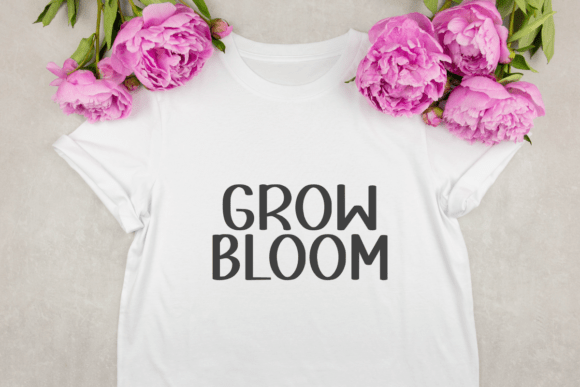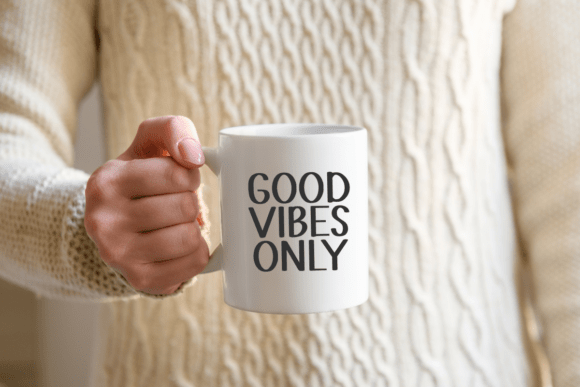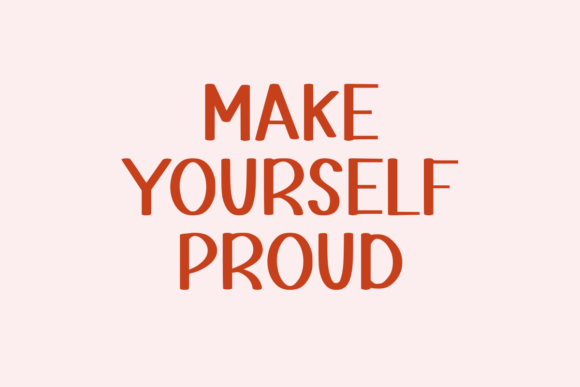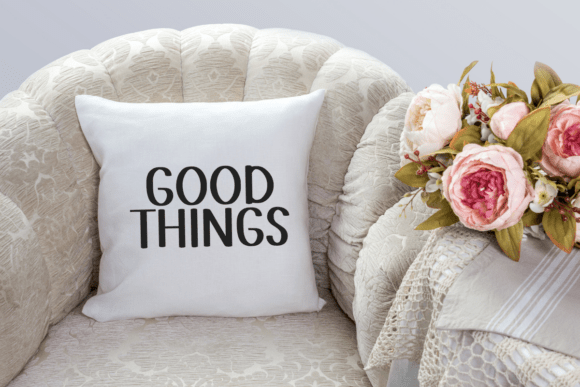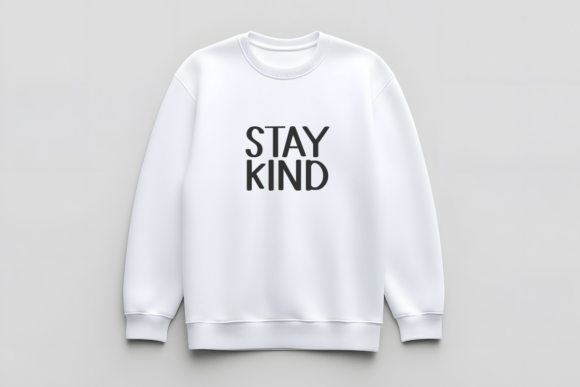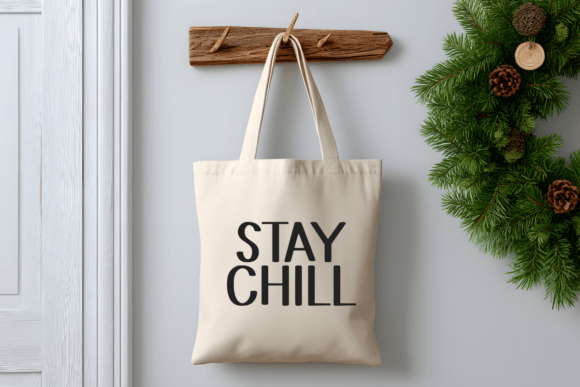
Introduction to Procees Feelings Font
Do you ever find yourself rummaging through your old notebooks, searching for that perfect font to match your creative vibe? I do! And that’s exactly why I’m excited to share with you the Procees Feelings Font – a sassy and sarcastic handwritten font that’s about to become your new BFF.
With its rounded and friendly look, this font is perfect for adding a personal touch to your creative projects. Whether you’re designing birthday cards, baby shower invitations, or simply jotting down notes, the Procees Feelings Font is sure to bring a smile to your face. And the best part? It’s a free download, available for high-quality use with a transparent background – making it the ultimate design resource for any creative project.
As a designer, you know how valuable a great font can be in elevating your work. That’s why I’m sharing this hidden gem with you – the Procees Feelings Font is a must-have for anyone looking to add a fun and adorable touch to their designs.
Key Features of Procees Feelings Font
- High-quality, hand-drawn design perfect for creative projects and artistic expressions.
- Features a transparent background, allowing for seamless integration with any design element.
- Includes a range of unique characters, including special symbols and emojis, to enhance the creative possibilities of the font.
- Supports a wide range of languages, making it a versatile design resource for international projects.
- Designed to evoke emotions and spark creativity, making it an ideal choice for designers, artists, and writers seeking a unique and expressive font.
Honest Review: Procees Feelings Font
I recently stumbled upon the Procees Feelings Font and I have to say, I’m quite impressed. As a designer, I’m always on the lookout for high-quality design resources to elevate my creative projects.
The Procees Feelings Font is a free download with a transparent background, making it incredibly versatile for use in various design applications.
- ✨ Elegant and modern design aesthetic
- ✨ Clear and readable typography
- ✨ Versatile and easy to use
- ⚠️ Limited font variations (only a few styles available)
- ⚠️ May not be suitable for formal or traditional designs
Overall, I’m quite pleased with the Procees Feelings Font. It’s a great addition to any designer’s toolkit, and I’m excited to see how it can elevate my future creative projects. If you’re looking for a high-quality, modern font, I’d definitely recommend giving it a try.
How to Use Procees Feelings Font
The Procees Feelings Font is a versatile and high-quality design resource ideal for creative projects. With its transparent background and elegant style, it can elevate any design to the next level.
The Procees Feelings Font can be used in a variety of design applications, including:
To get the most out of the Procees Feelings Font, try combining it with other design elements, such as textures and patterns, to create a unique and eye-catching design. Experiment with different font sizes and colors to achieve the desired effect.
The Procees Feelings Font is ideal for:
- Creating social media graphics and posts
- Designing business cards and marketing materials
- Developing branding and logo designs
Alternatives to Procees Feelings Font
Great Vibes Font is a high-quality, hand-drawn script font perfect for creative projects. It features a transparent background, making it ideal for use on images and designs where a clear background is necessary. Great Vibes Font is a great alternative to Procees Feelings Font for designers looking for a more elegant and sophisticated feel.
When to use: Wedding invitations, birthday cards, and other special occasion designs.
Comparison: Great Vibes Font is more elegant and refined compared to Procees Feelings Font, making it suitable for more formal designs.
Alex Brush Font is a beautiful, handwritten font that is perfect for designers looking for a unique and creative design resource. It features a high-quality design and is available for free download. Alex Brush Font is a great alternative to Procees Feelings Font for designers looking for a more artistic and expressive feel.